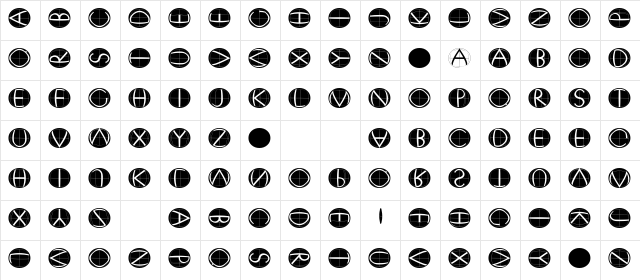
XperimentypoFourC RoundInvers
Design Context for XperimentypoFourC Typeface
XperimentypoFourC uses gentle rounded endings to create a warm, inviting typographic personality — less corporate than geometric sans, more refined than playful display fonts.
A natural fit for tech startups, health and wellness brands, children's products, and friendly consumer apps.
Font Pairing: Pairs well with a rounded or humanist sans for body copy, maintaining the friendly tone without relying on XperimentypoFourC to carry extended reading.
Pro Tip: Pair XperimentypoFourC with a geometric sans for a balanced system — the rounded softness works as a warm counterpoint to harder-edged companions.